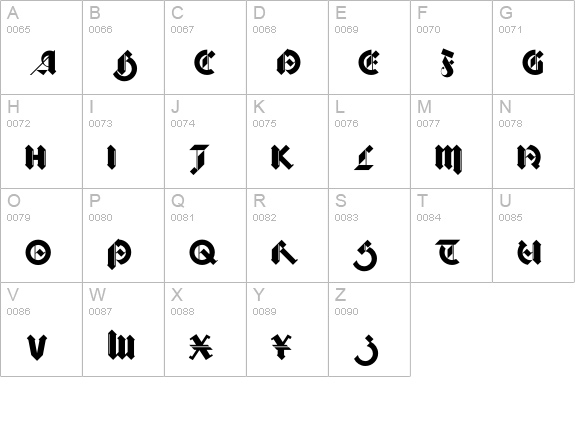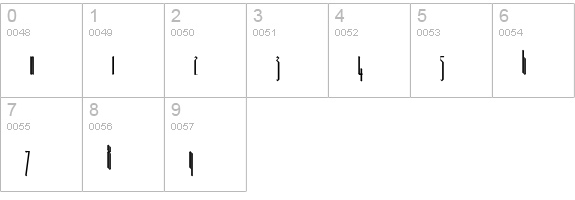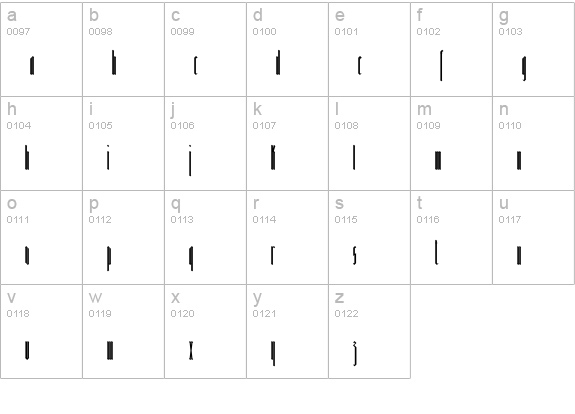
Introducing Bastard font - a bold and eye-catching typeface that demands attention with its edgy and modern design. This unique font is perfect for making a statement in your designs, whether it be for logos, posters, or branding projects. The Bastard font exudes a sense of confidence and strength, making it the perfect choice for projects that require a bold and impactful look. And the best part? Bastard font is available for free download at FontsMarket.com! This means you can add this striking font to your collection without breaking the bank. Don't miss out on the opportunity to elevate your designs with the distinctive style of Bastard font. Download it today and unleash your creativity!